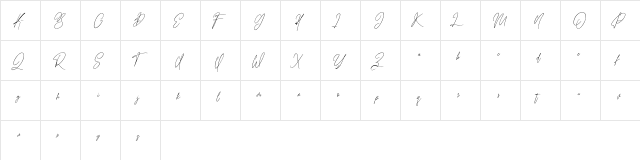
Brittanstone FREE Regular
Design Context for Brittanstone FREE Typeface
Brittanstone FREE is a composed and adaptable typeface that performs quietly and consistently across a wide range of design contexts.